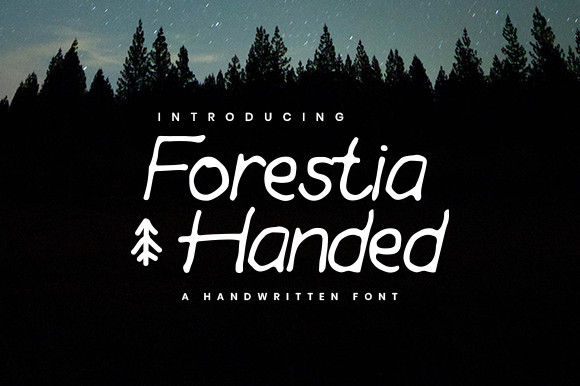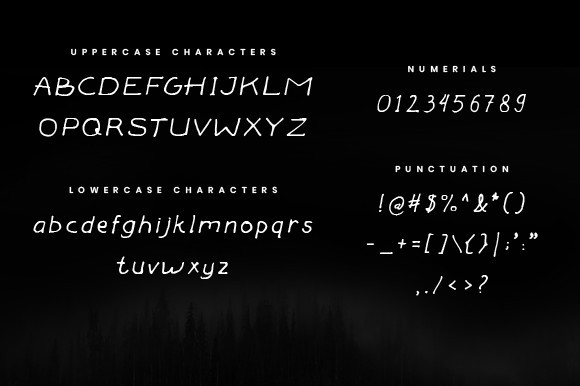
Forestia Handed Font
Forestia Handed is a natural and raw script font that’s ideal for any outdoorsy or adventure-themed projects. It will evoke associations with nature, calmness, and sincerity.